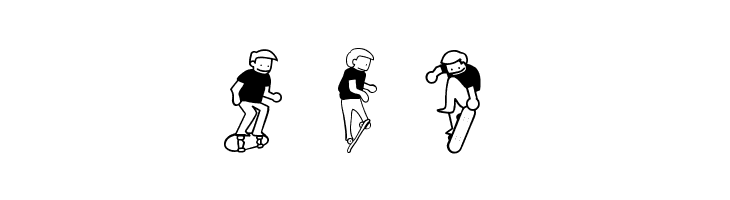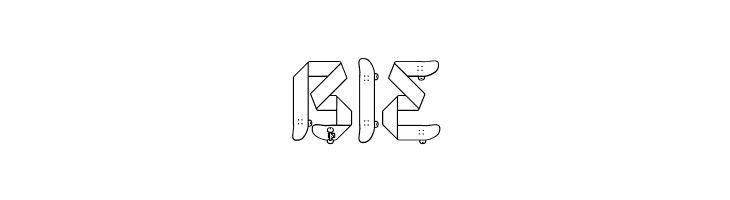
[skateboarding] Font
Font by Rodrigo German - RASDESIGN
A bold, edgy font inspired by urban street art and skate culture.
skateboard Font
Font by weknow - Wino S Kadir
A playful, bubble-like font with a retro vibe and consistent boldness.
AntiHero Font
N ! C E
A bold, serif font with strong, classic lines and modern elegance.
SKATEBOaRD braNds Font
Font by Manuel Viergutz - Typo Graphic Design - www.typographicdesign.de
A bold, eclectic display font with diverse, dynamic letterforms and a rebellious aesthetic.
Skateboard Unlimited Font
A bold, brush-style font with a dynamic, handwritten appearance.
Skateboardfont Font
A playful, skateboard-themed decorative font with a bold, geometric style.
The Skateboarding Font
Font by La Matrice | Maël Keïta Valère
A bold, graffiti-inspired font with a playful, dynamic style.
Skateboarding Club Font
A bold, dynamic font with thick, angular strokes and a slanted orientation.
Skateboard Girl Demo Font
Font by NihStudio
A bold, graffiti-inspired font with dynamic, angular letterforms.